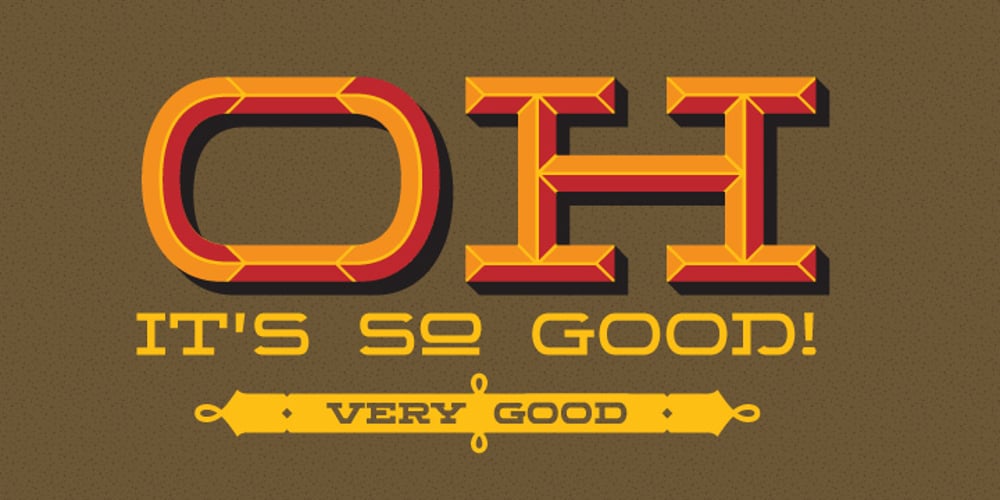
Wide Display Font Family was designed by Valery Zaveryaev and published by Gaslight. Wide Display contains 16 styles and family package options. Unicase wide slab-serif with numerous alternatives and decorative elements. In Ribbon styles kerning for black ribbons released as Discretionary Ligatures. Lets do wide!